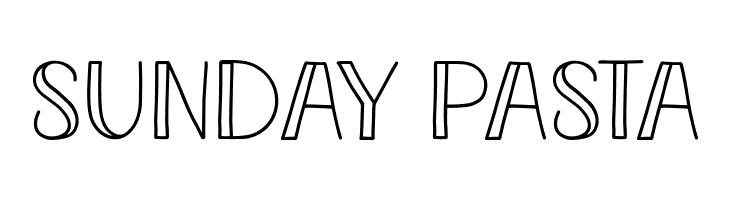
A bold, slightly italic font with a dynamic and modern style.
A bold, distressed font with a grunge, hand-drawn style.
A bold, futuristic font with star and circular motifs, perfect for decorative use.
An artistic inline font with a modern and abstract style.
A modern, geometric font with bold, abstract elements and dynamic strokes.
A decorative script font with scalloped frames around each character.
A bold, modern font with thick strokes and tight spacing, perfect for impactful headlines.
A bold, blackletter font with intricate detailing and a gothic aesthetic.
A modern, playful font with geometric and organic elements.
A refined script font with elegant, flowing cursive letterforms.